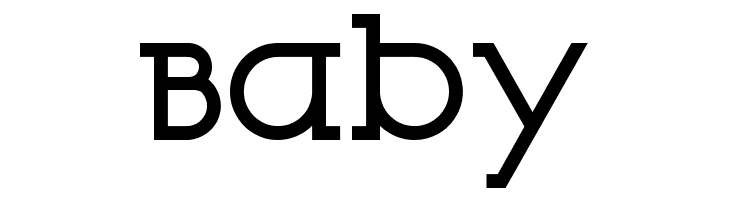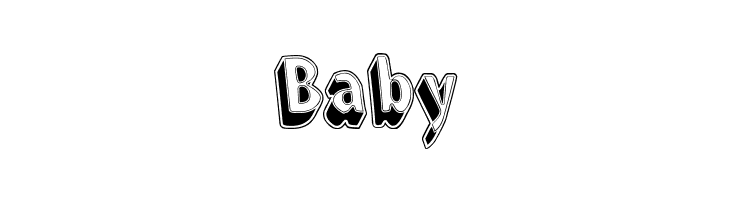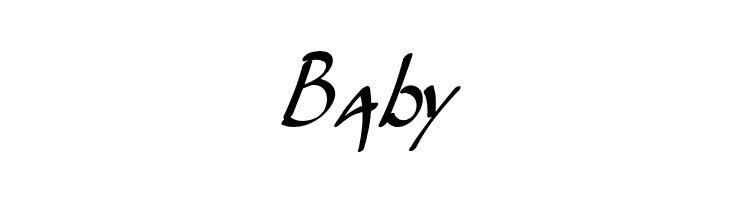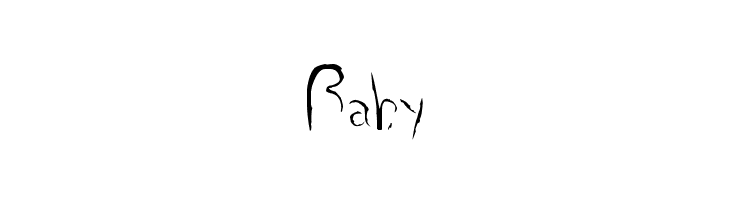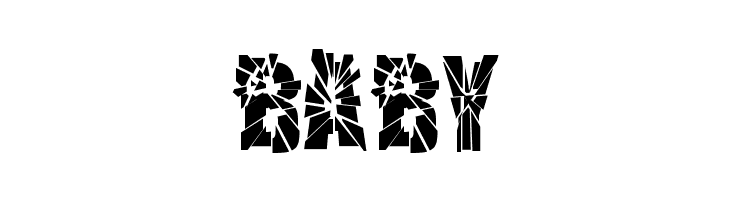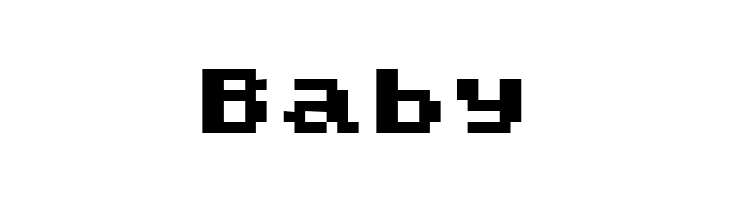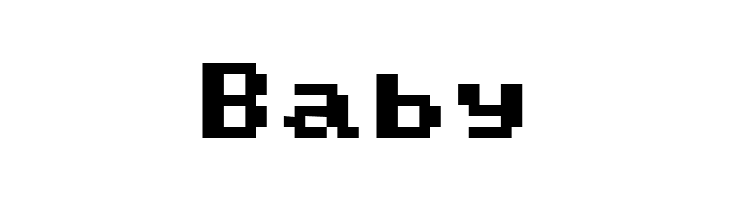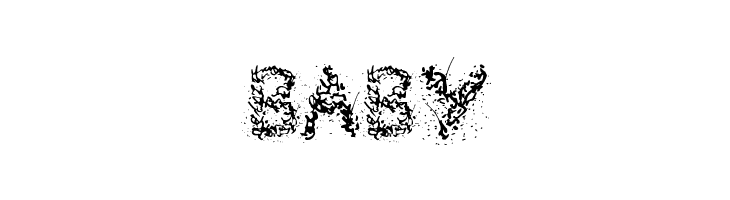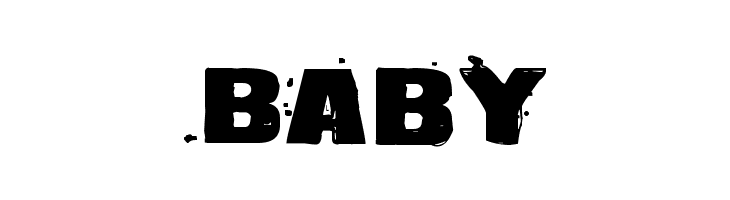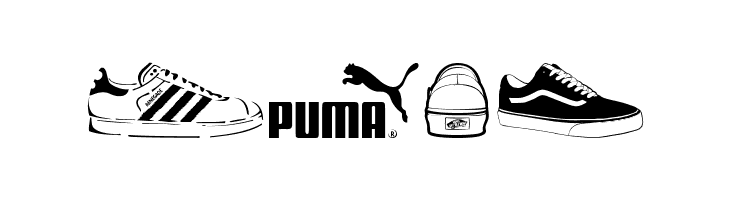
An artistic, smudged font with irregular strokes and a hand-drawn appearance.
A playful, crayon-like font with textured, hand-drawn strokes.
A bold, pixelated font with a retro, digital aesthetic.
A pixelated, retro-style font with a blocky, digital appearance.
A bold, distressed font with a vintage, Western-inspired style.
A modern, italicized font with a sleek and dynamic design.
A playful, zigzag-outlined font with a dynamic and energetic style.
A bold, textured font with a stitched, embroidered appearance.
A bold, distressed font with a grunge aesthetic and rugged texture.
A bold, distressed font with a rugged, grunge aesthetic.
A bold, three-dimensional font with a playful and dynamic appearance.
A bold, 3D font with a playful, cartoonish style and thick outlines.
A modern, geometric font with a monoline, stencil-like design.
A futuristic, geometric font with rounded edges and continuous strokes.
A display font made from sneaker and athletic shoe illustrations.
Monochrome sneaker and sports shoe silhouettes with brand logos.
A modern, geometric font with clean lines and rounded edges.
A bold, dynamic script font with a playful and energetic style.
A whimsical, hand-drawn font with playful, irregular letterforms.
An expressive, italic font with sharp, angular strokes and dynamic flair.
A modern, geometric font with sharp angles and a technical appearance.
A playful, informal handwritten font with dynamic strokes.
A playful, bold, and bubbly font with a hand-drawn feel.
A decorative font with intricate snowflake patterns within bold characters.
A playful, snow-capped font perfect for winter-themed designs.
A decorative font with a snowflake-like, textured design.